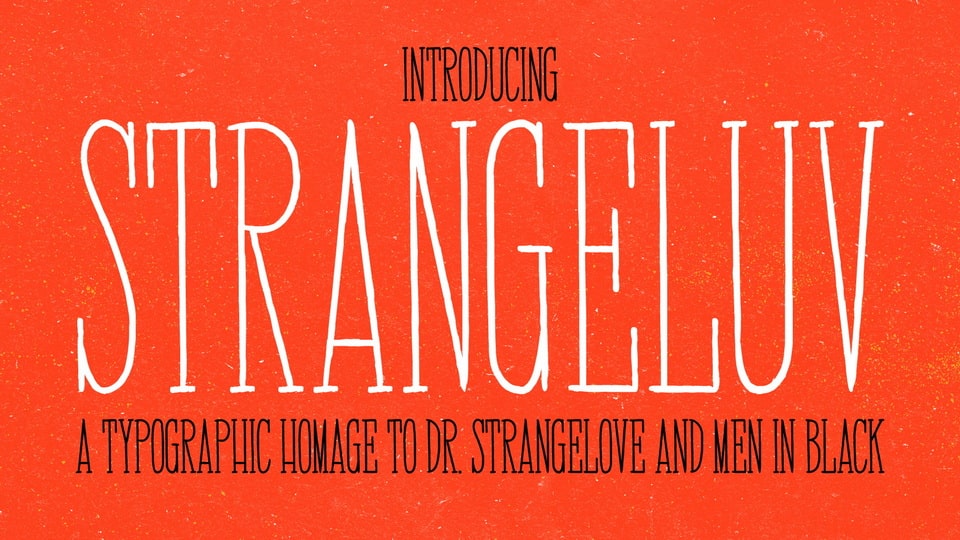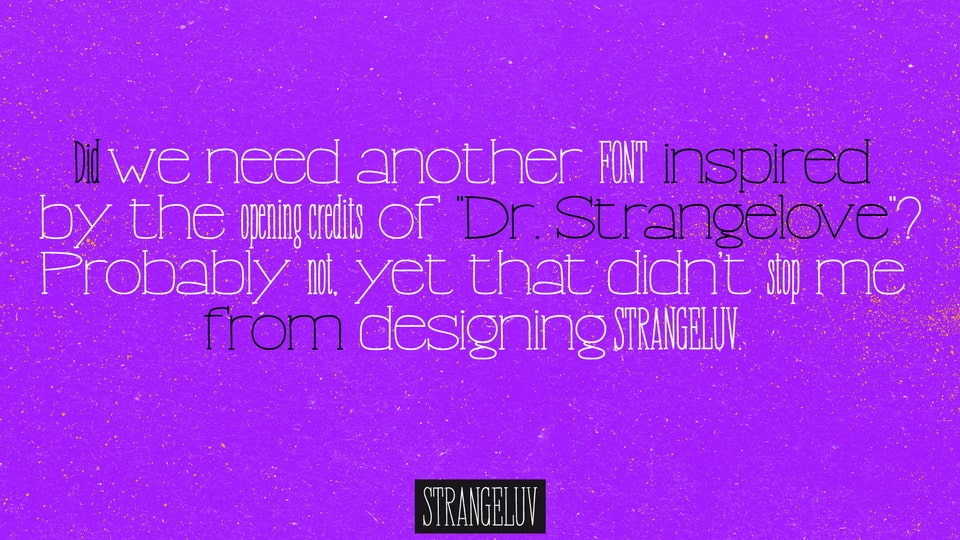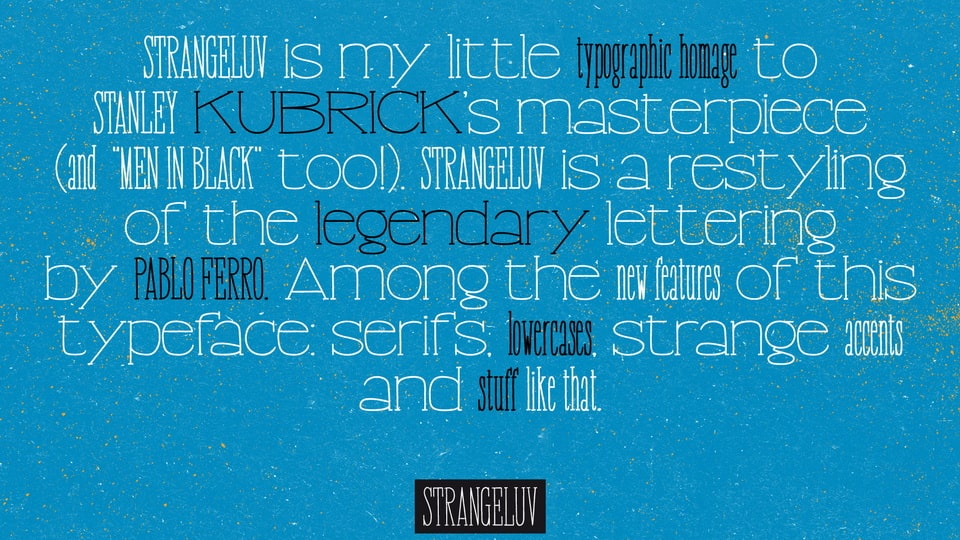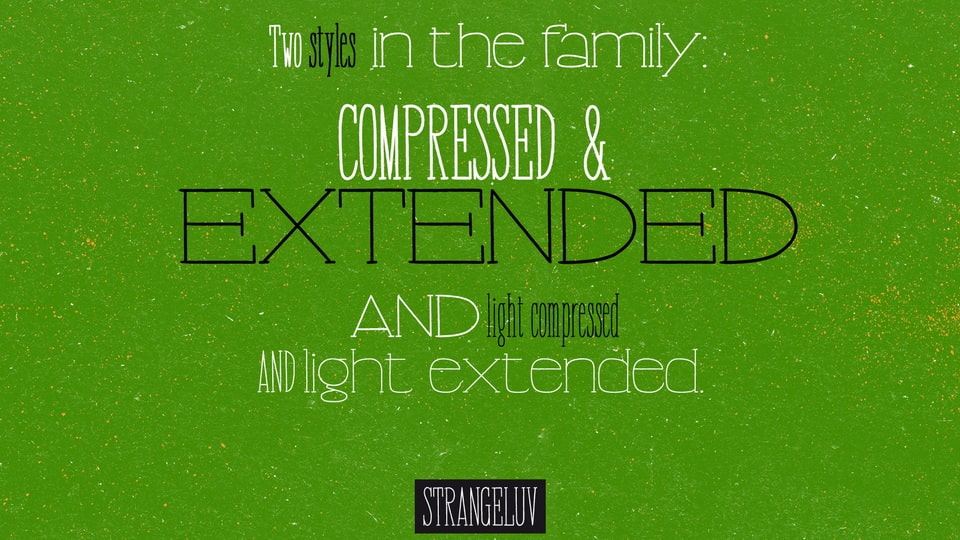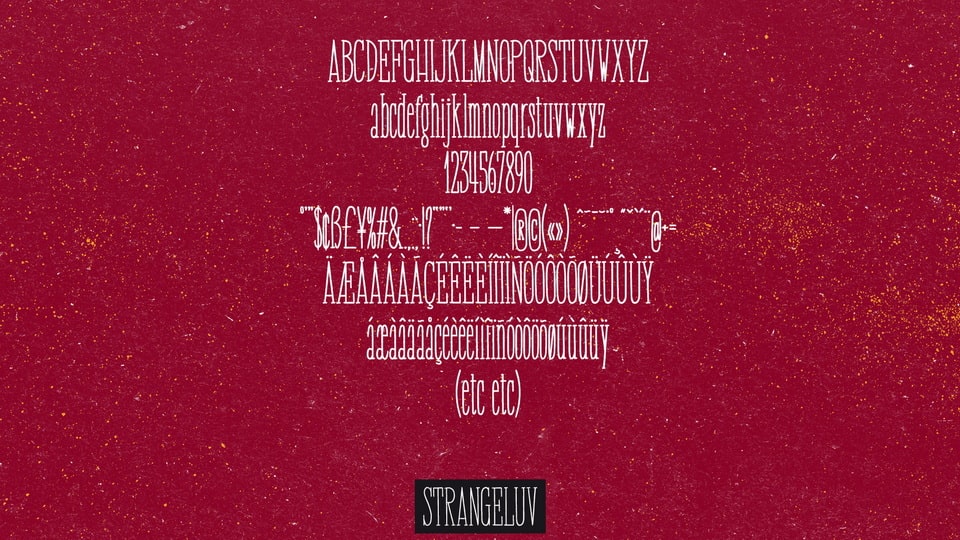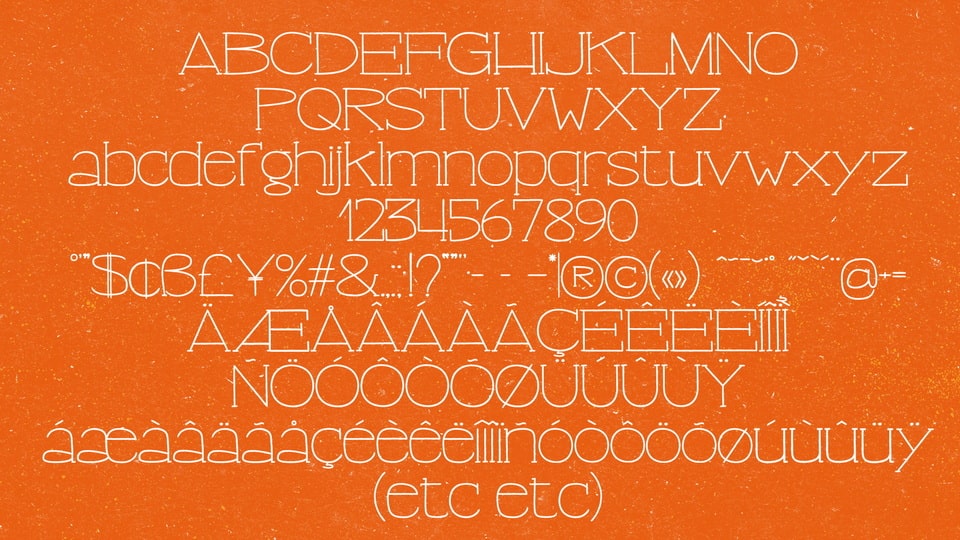
Did we need another font inspired by the opening credits of “Dr. Strangelove”? Probably not, yet that didn’t stop me from designing STRANGELUV, my little typographic homage to Stanley Kubrick’s masterpiece (and “Men in Black” too!).
STRANGELUV is a restyling of the legendary lettering by Pablo Ferro. Among the new features of this typeface: serifs, lowercases, a few ligatures, strange accents and stuff like that. Two versions in the family: compressed and extended (both light and regular)!